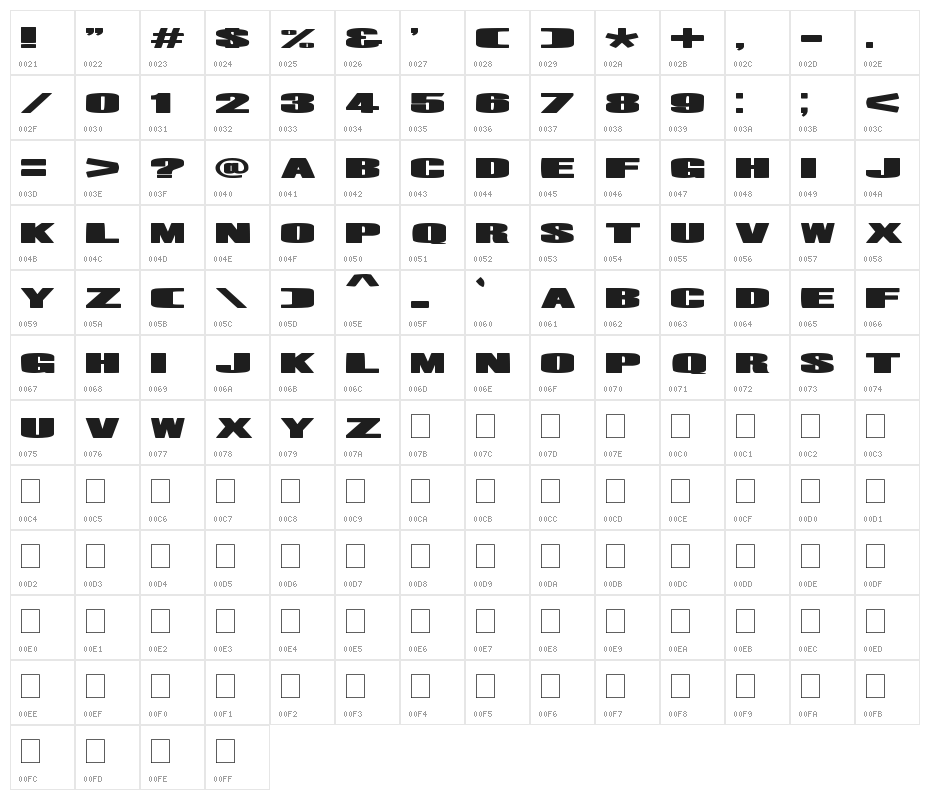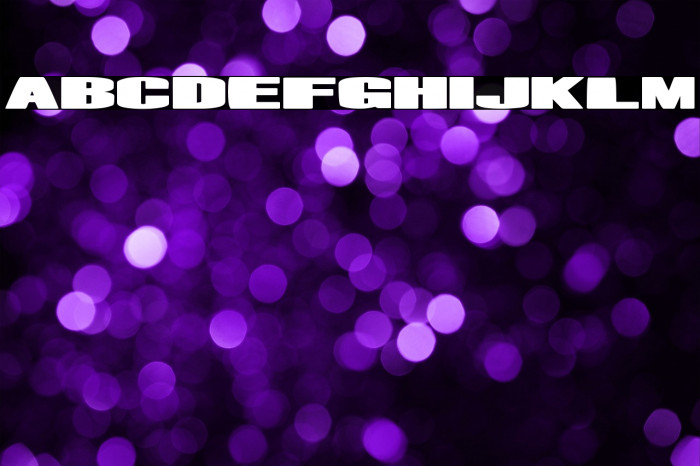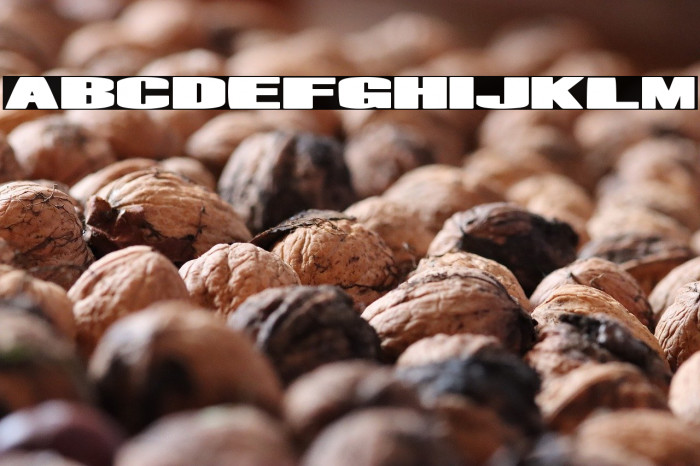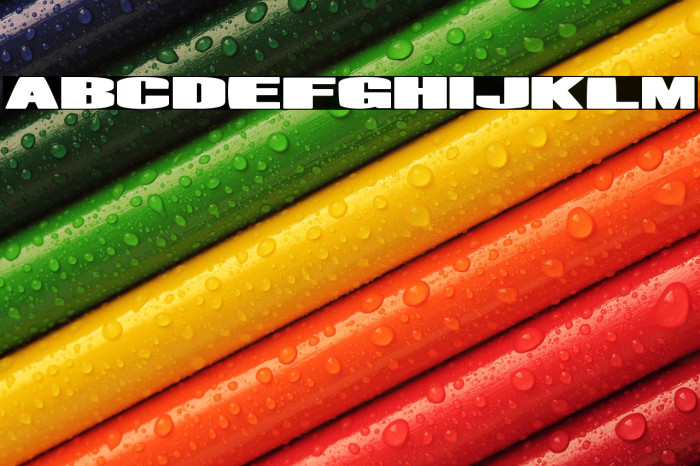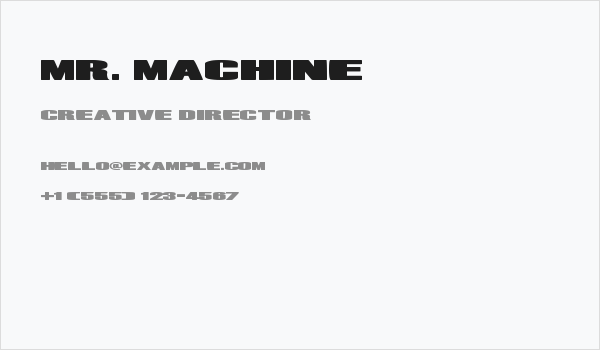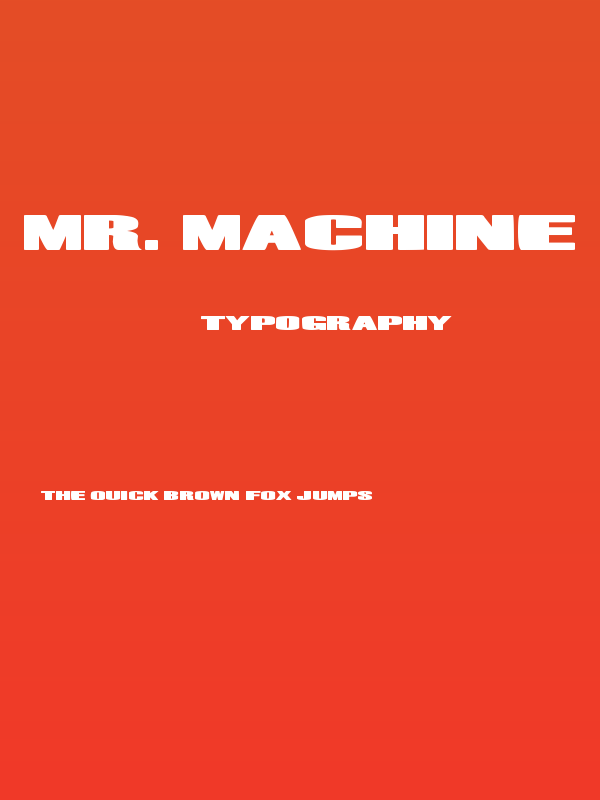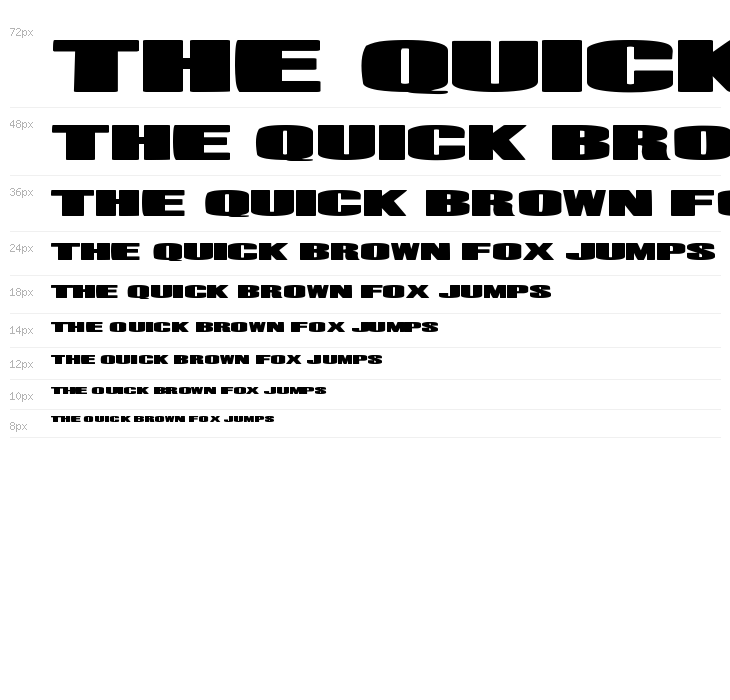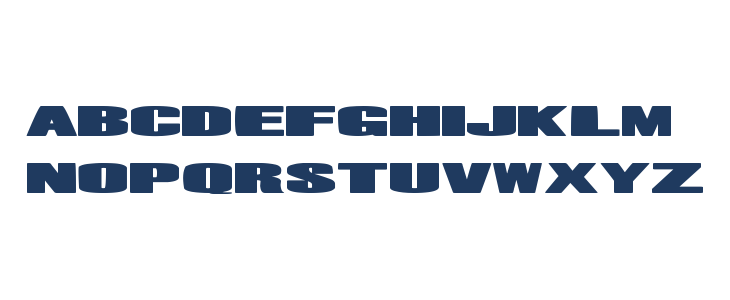
Mr. Machine Font
Mr. Machine Description
This bold, impactful font features thick, blocky characters with a strong presence. The uppercase letters are uniformly wide, creating a sense of stability and strength. The numbers and special characters maintain this robust style, ensuring consistency across all elements. The font's design is reminiscent of industrial or mechanical aesthetics, with a modern twist. Its high contrast and solid structure make it ideal for attention-grabbing headlines or logos that require a commanding visual impact. The spacing between characters is tight, enhancing its bold appearance and making it suitable for compact layouts.